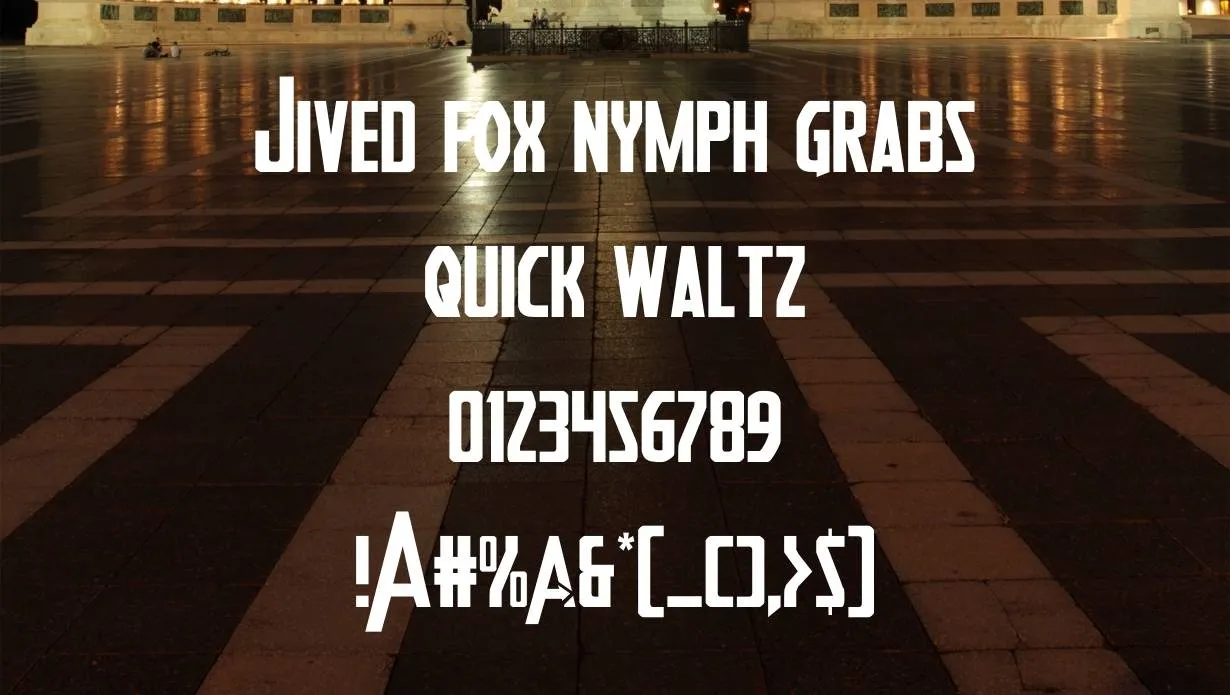
Heroes Assemble Font is a superhero font that was designed by the font company, FontBros. The font is inspired by the popular comic book series, Heroes Assemble. The font is perfect for creating titles and headlines for your projects that need a heroic touch. The font includes uppercase and lowercase letters, numbers, and symbols.
This font has unique lettering that gives your project an extra heroic touch. The letters are tall and have a slight slant to them, making your headlines look like they’re leaping off the page.
This Font is available in two styles, regular and bold. It also includes upper and lowercase letters, as well as numbers and punctuation. If you’re looking for a superhero font for your next project, be sure to check out this Font.
Who Used Heroes Assemble Font?
This Font can be used for headlines, titles, logos, and more. It’s perfect for any project that needs a heroic touch. This Font is perfect for creating banners and posters for your next event. You can also use it for promotional materials, such as flyers and brochures. The font is also great for creating logos and web graphics.
Heroes Assemble Font Family Appearance
| Name | Heroes Assemble Font |
| Designer | FontBros |
| Style | Display |
Alternatives of Heroes Assemble Font
Family of Heroes Assemble Font
- Heroes Assemble Regular Font
What font is similar to Heroes Assemble Font?
Some fonts that are similar to this Font include Gotham Bold, Superman Font, and Aquaman.
Is Heroes Assemble typeface legible?
Yes, This Font is a very legible font. The letters are tall and have a slight slant to them, making your headlines look like they’re leaping off the page.